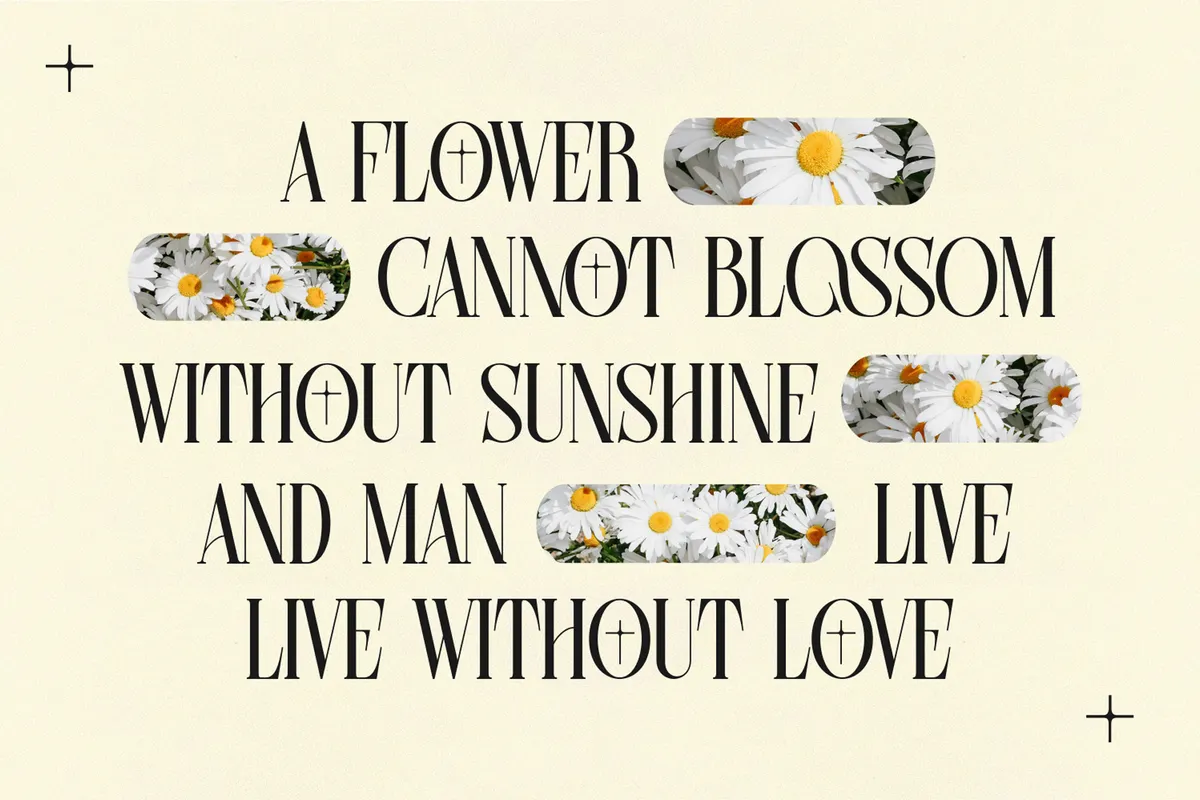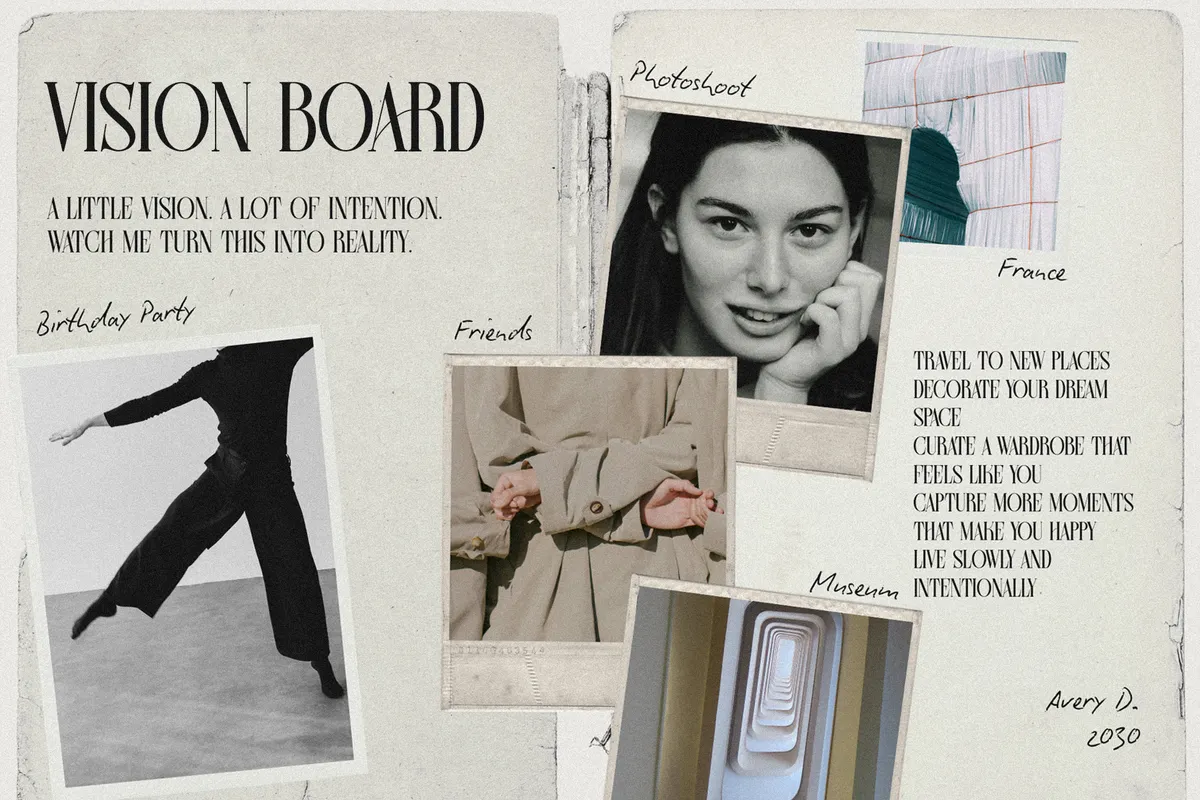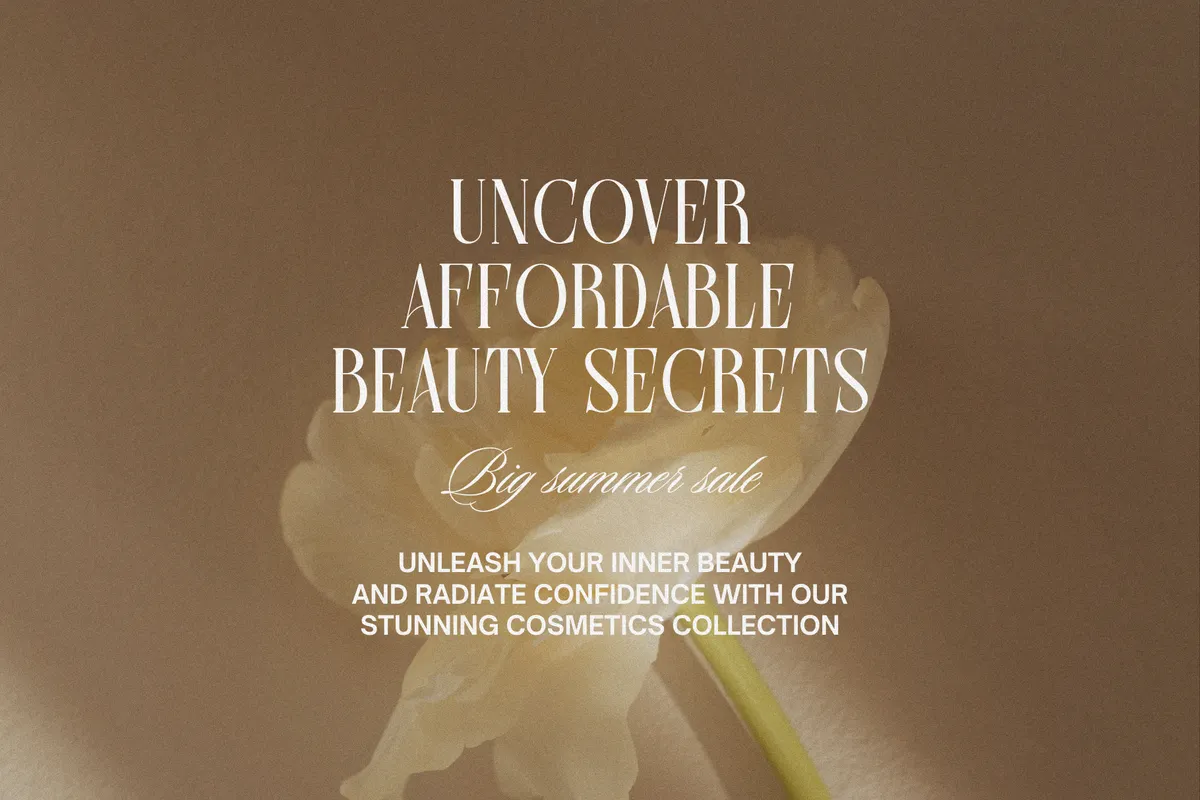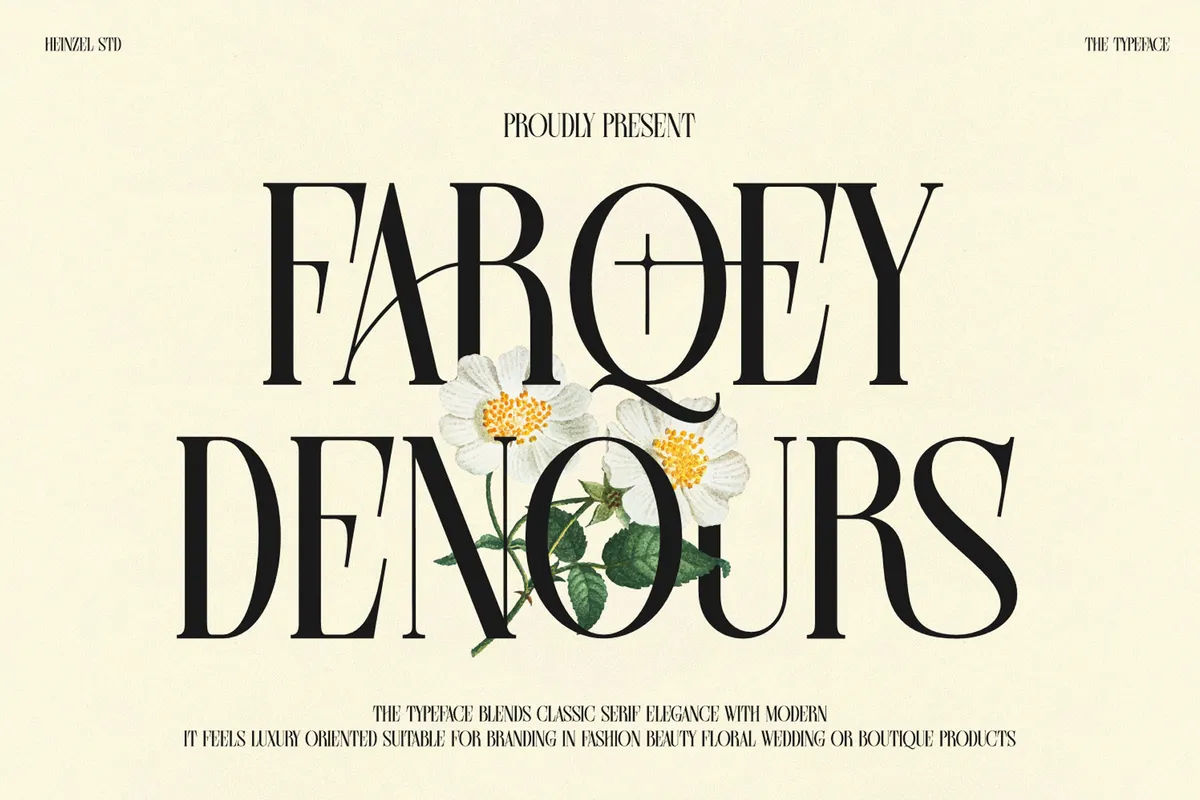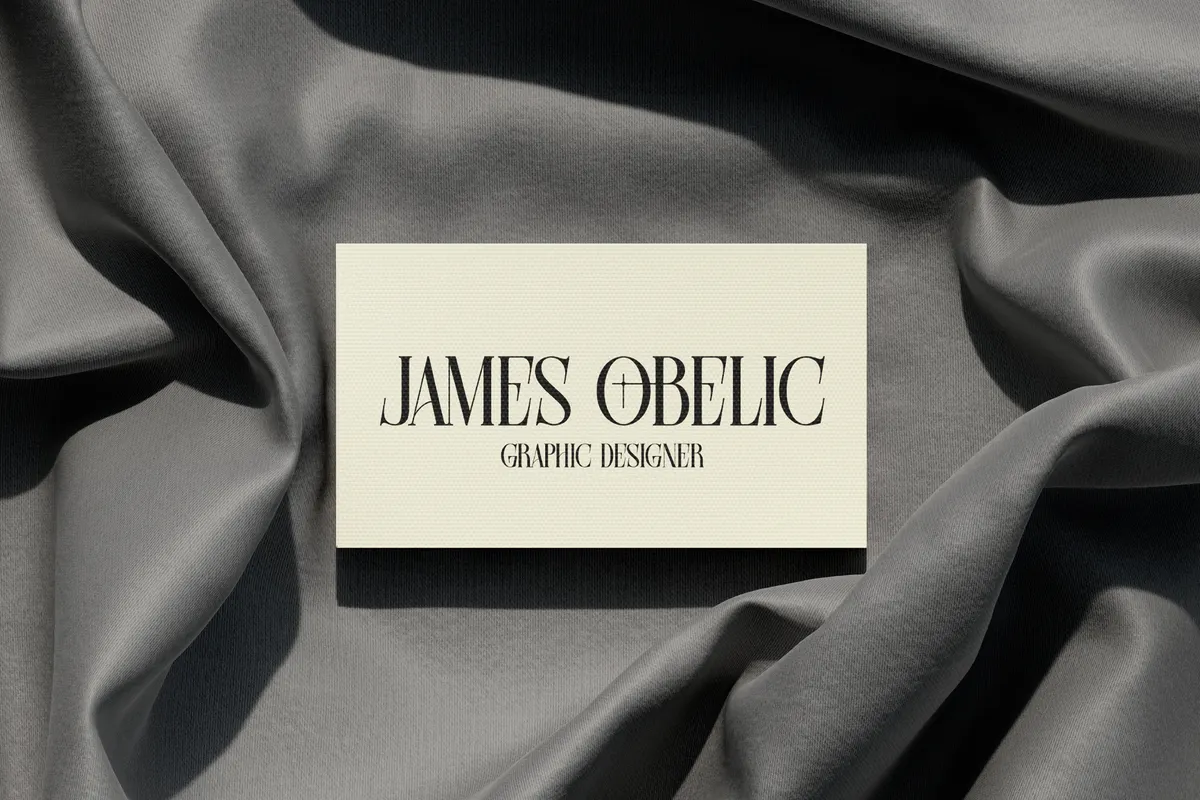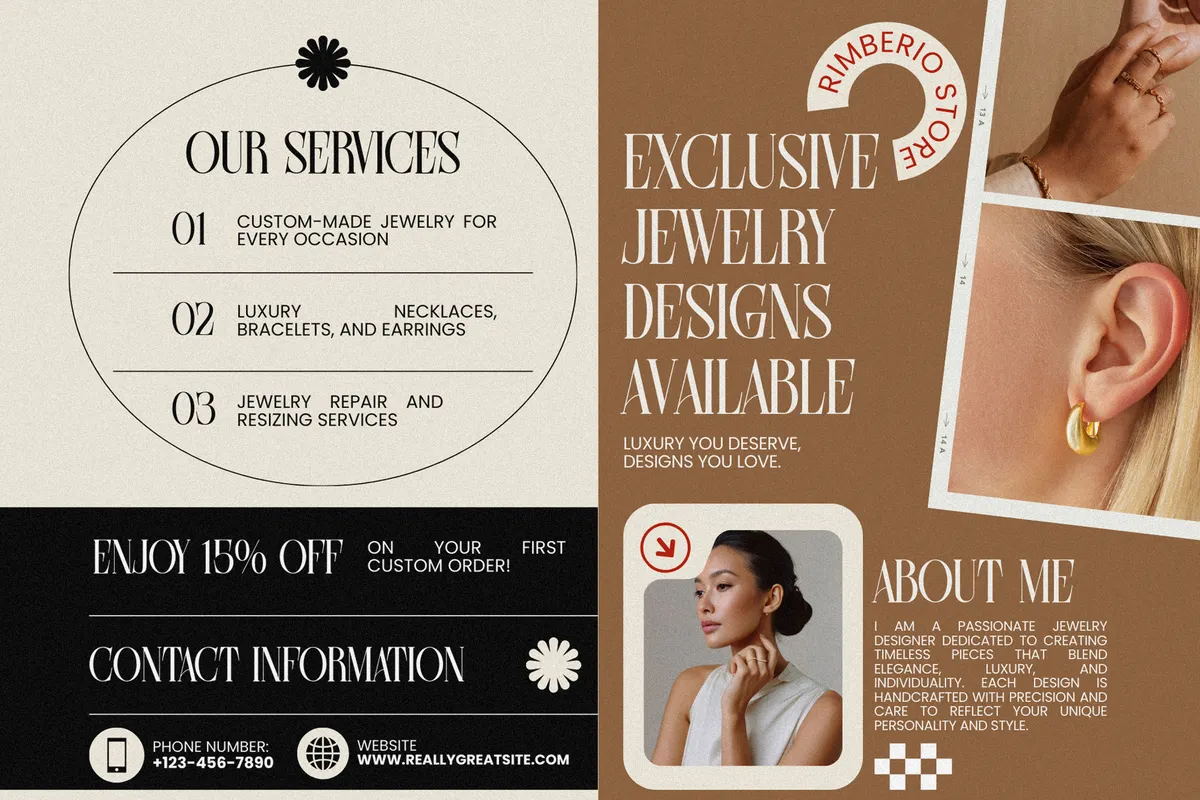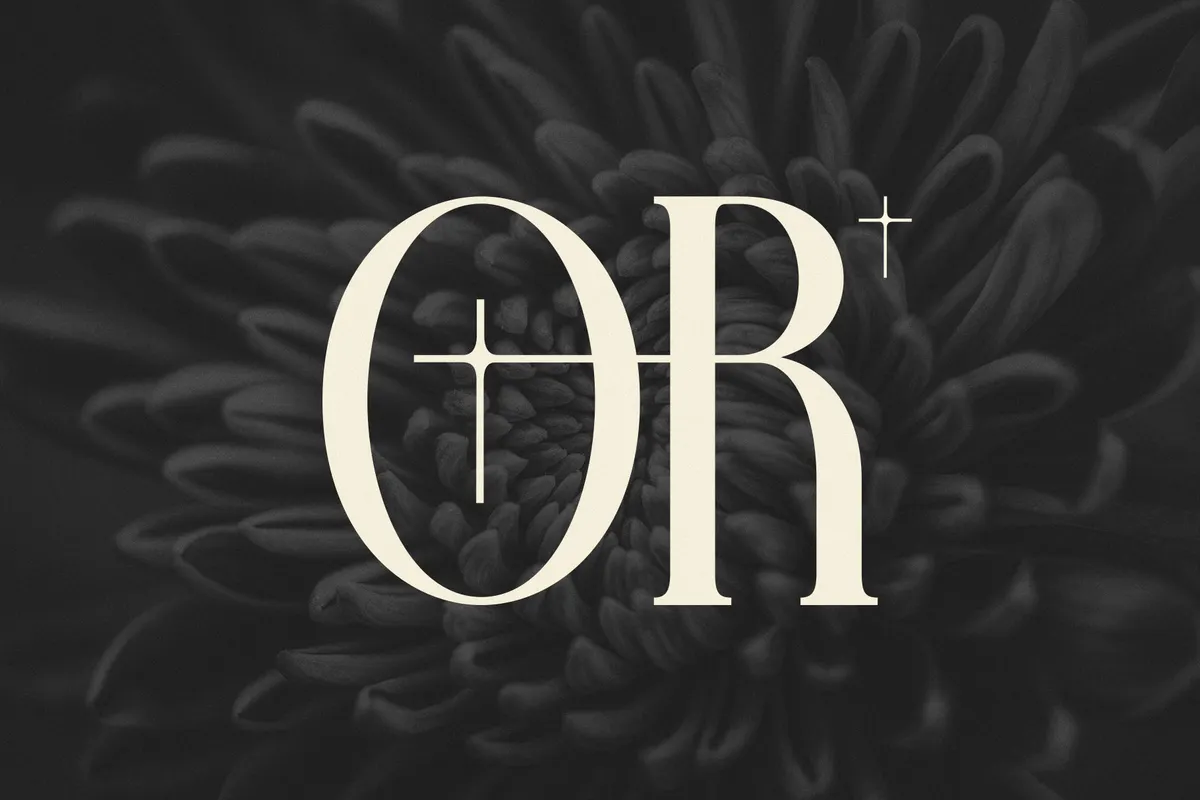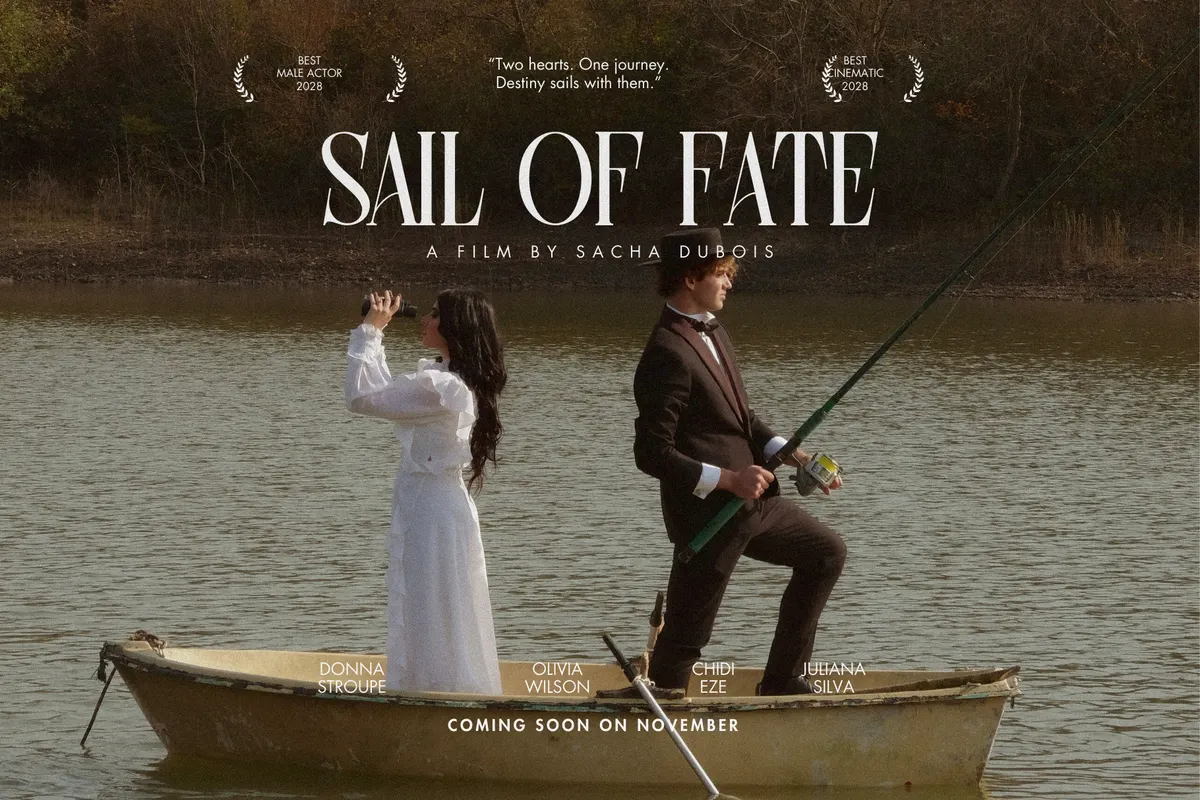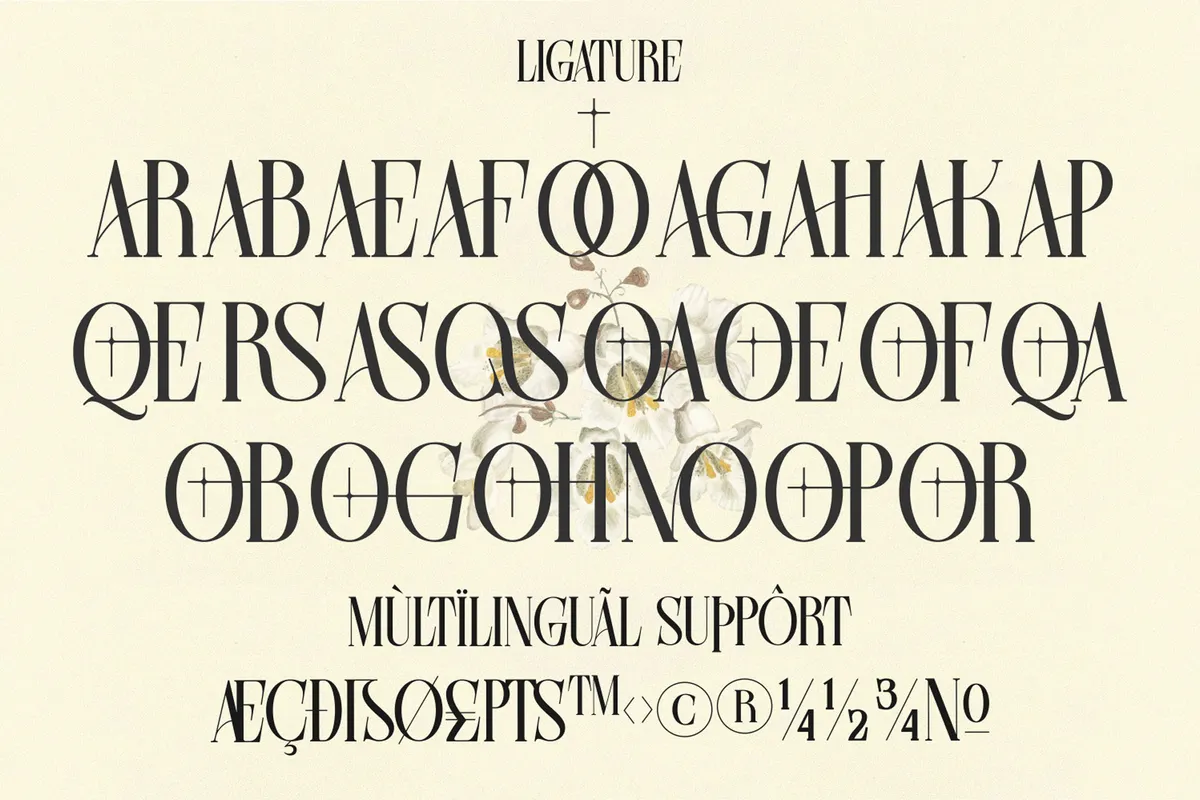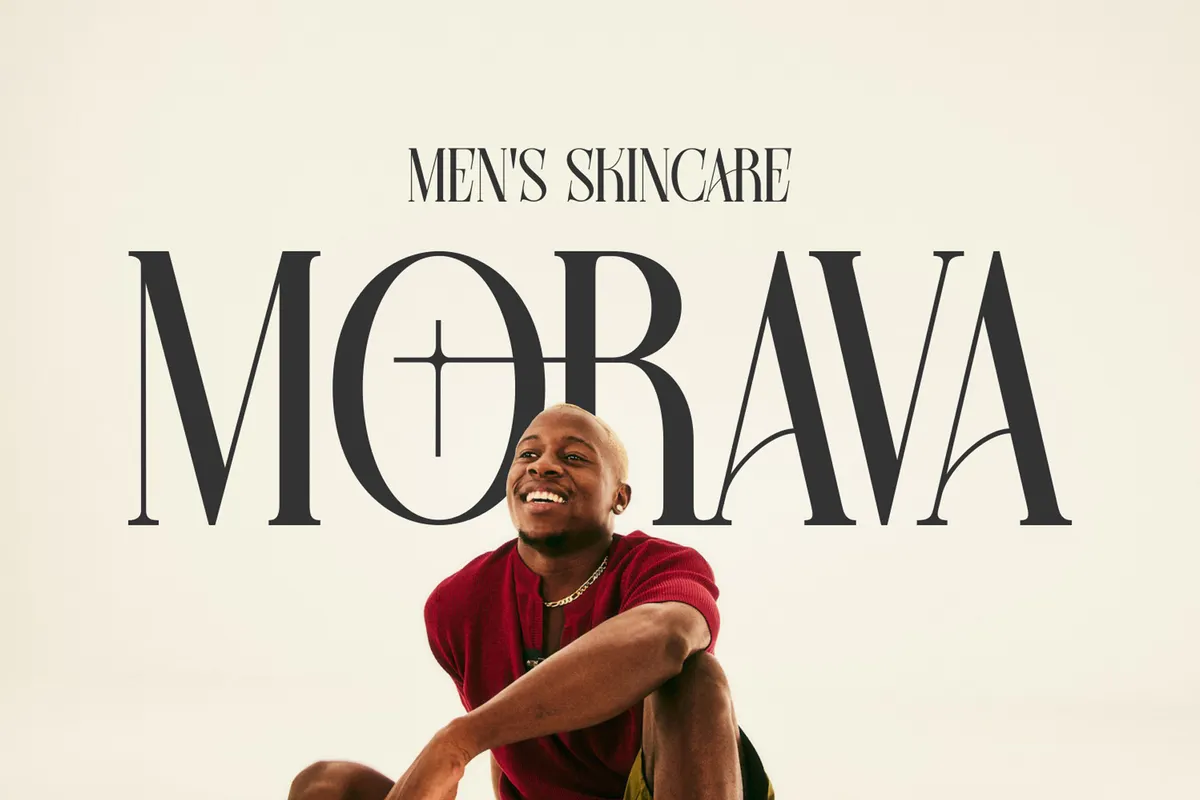
Farqey Denours - Luxury Serif Display Font
Farqey Denours draws a tall, high-contrast serif built as a single case, so capitals and lowercase share the same letterforms for one consistent display voice. Twenty-three ligatures connect pairs like AR, AS, OR, OS, QA, and NO into single decorative marks, reachable through the OpenType panel.
A small cross mark replaces the dot on i and j and sits inside several rounded letters as a signature detail. Use it for fashion branding, beauty products, floral boutiques, wedding invitations, editorial layouts, logos, and high-end packaging.
- Unicase letterforms, capitals and lowercase share the same design;
- Numerals, punctuation & symbols;
- 23 ligatures;
- Extended Latin character set